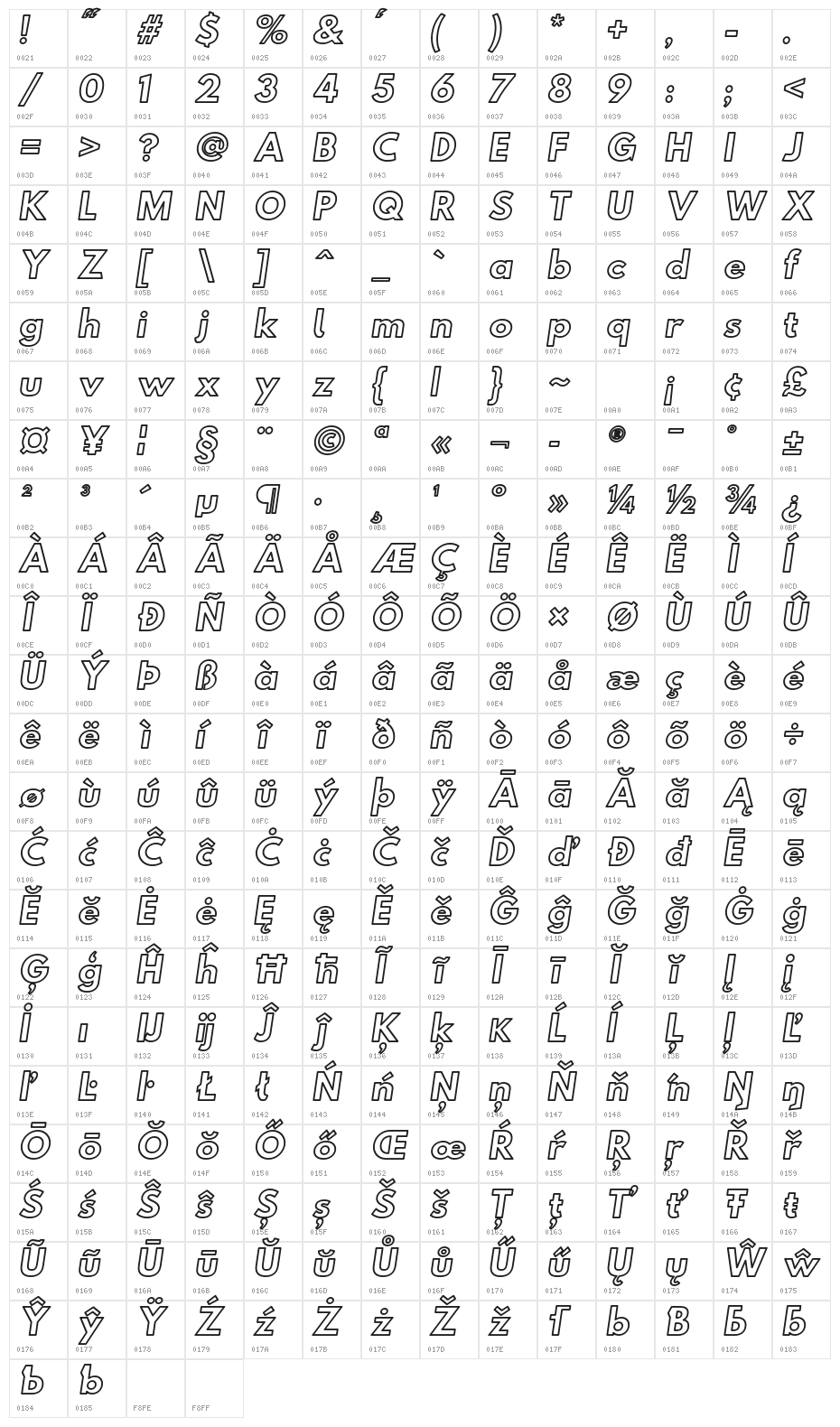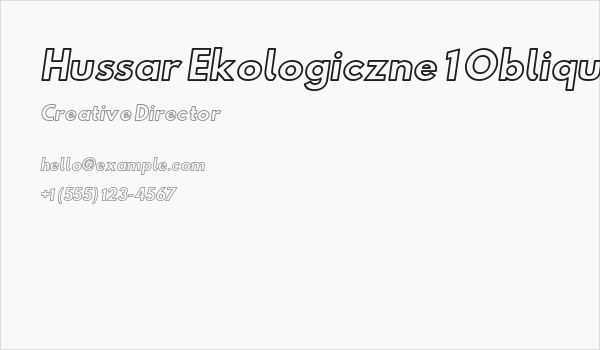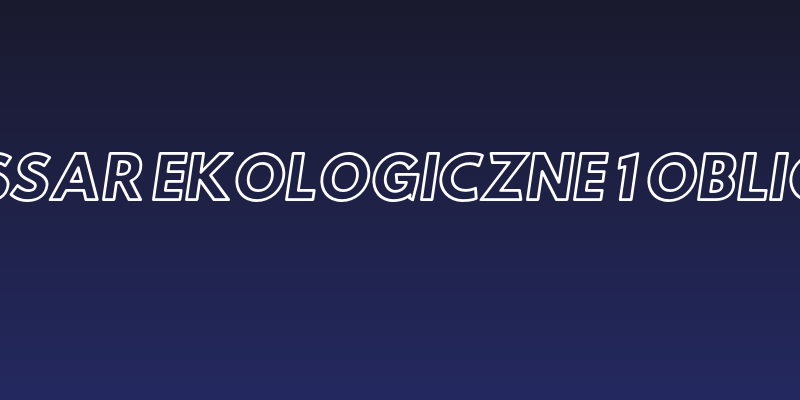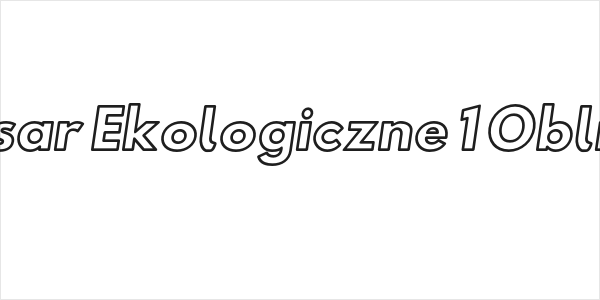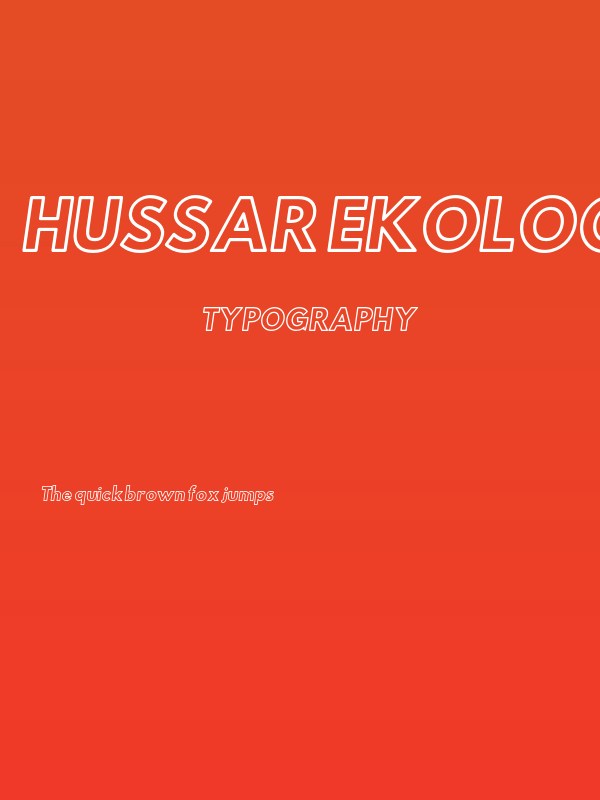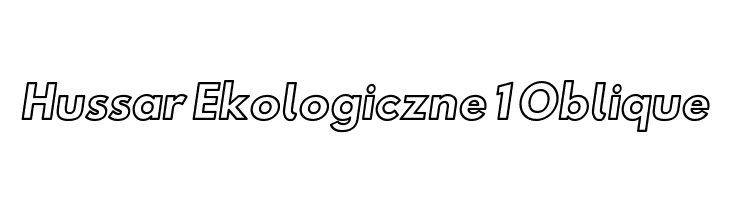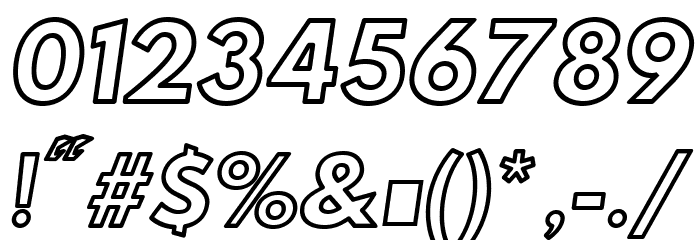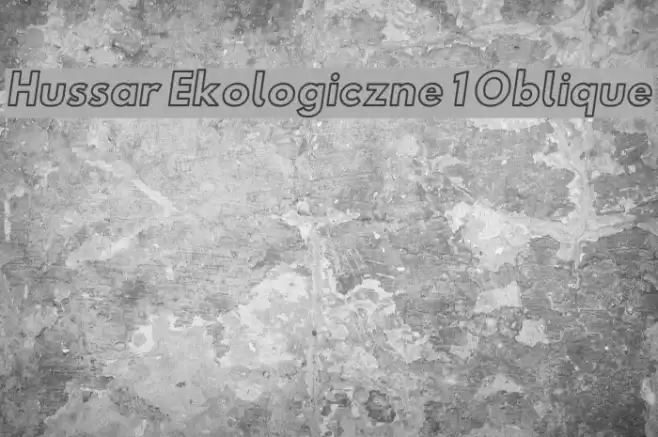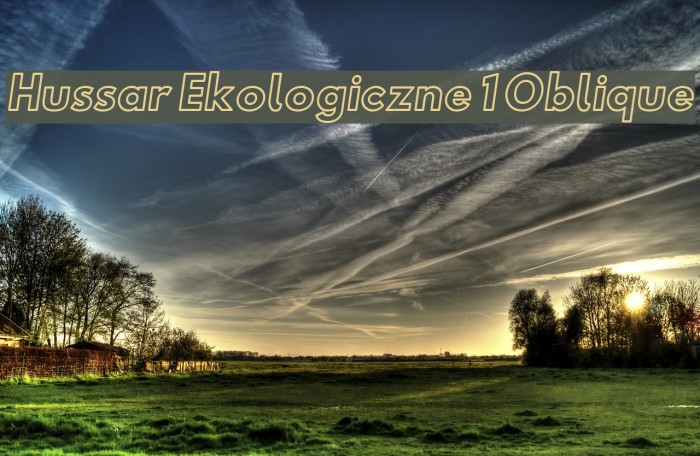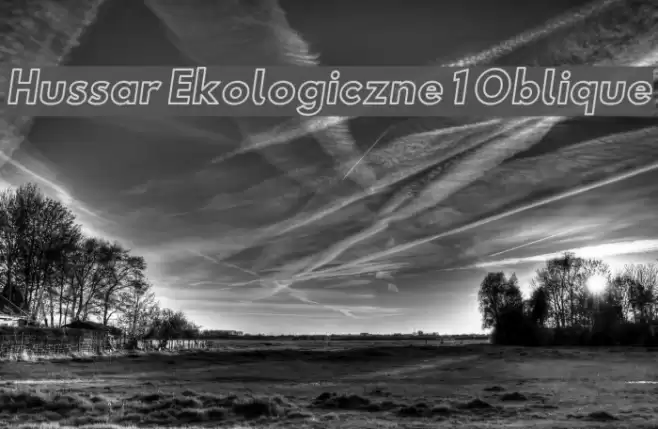
Hussar Ekologiczne 1 Oblique Font
Hussar Ekologiczne 1 Oblique Description
This font features a modern and dynamic style with a distinct oblique orientation. The characters are outlined, giving them a bold and striking appearance while maintaining a sense of lightness. The uppercase and lowercase letters are well-proportioned, with a consistent slant that adds a sense of movement and energy. The numerals are clear and easily distinguishable, matching the overall aesthetic of the alphabet. Special characters are included, maintaining the same stylistic approach, making this font versatile for various design needs. The font's clean lines and contemporary feel make it suitable for projects that require a modern and engaging look.
| Proposed Projects | Ideal for branding, advertising, posters, and any design project that requires a modern and eye-catching typeface. |